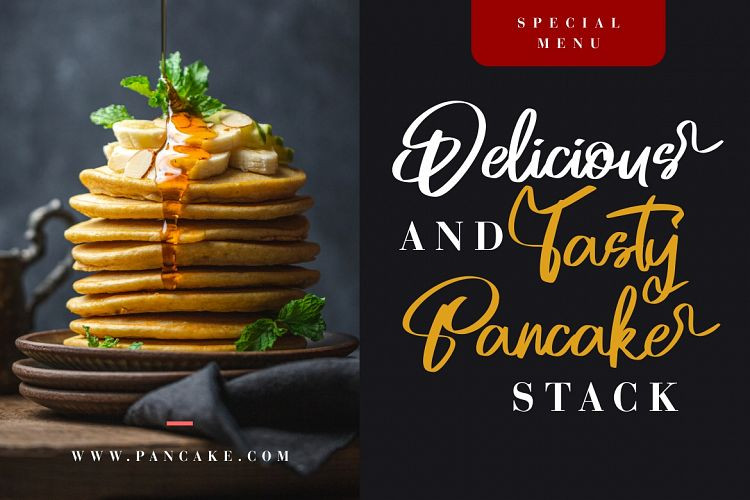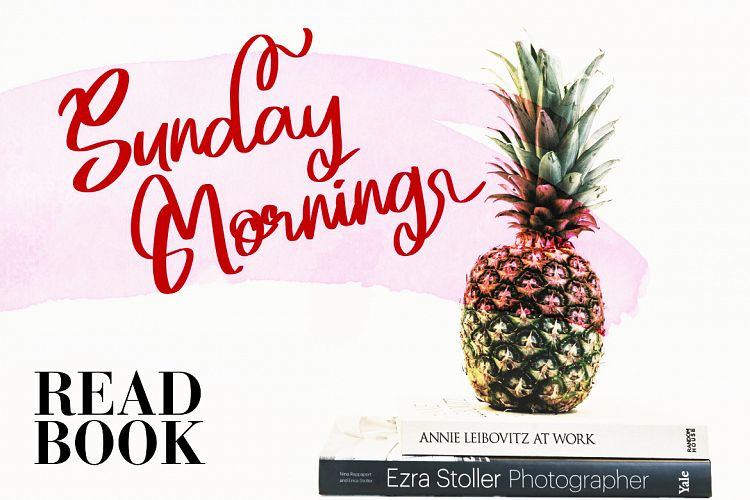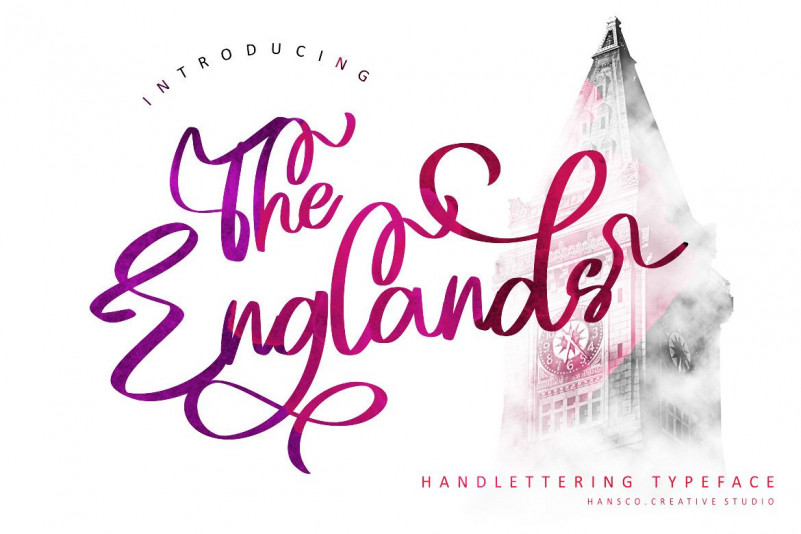
The Englands Font
The Englands is a modern brush script font with hand lettering style. This font looks cool in any design and very recommended for craft, poster, branding, quote, or anything else that needs a touch of unique and fun. This font has a some ligature and stylistic set alternate characters, you can access all alternates from your Open Type panel in your design software.